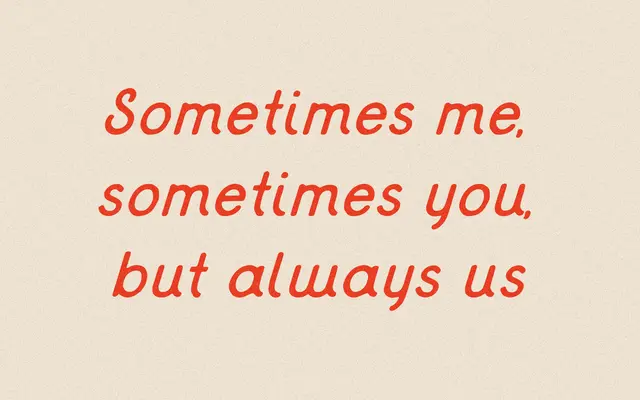
Sweetheart
Sweetheart specimen from Taylor Penton
A loosely drawn handwritten italic that mimics the uneven, sincere quality of pen lettering found in personal correspondence.
Drawn from the aesthetic of handwritten love notes, this script leans into natural irregularity rather than the polished consistency of formal brush scripts. A single Regular weight is supplied as OTF, WOFF and WOFF2, covering basic Latin with a limited set of accented characters across 150 glyphs. Best suited to packaging, branding and editorial contexts where casual warmth is more useful than technical precision.
A loosely drawn handwritten italic script imitating casual pen lettering, with natural irregularity and an informal, personal quality rather than formal calligraphic structure.